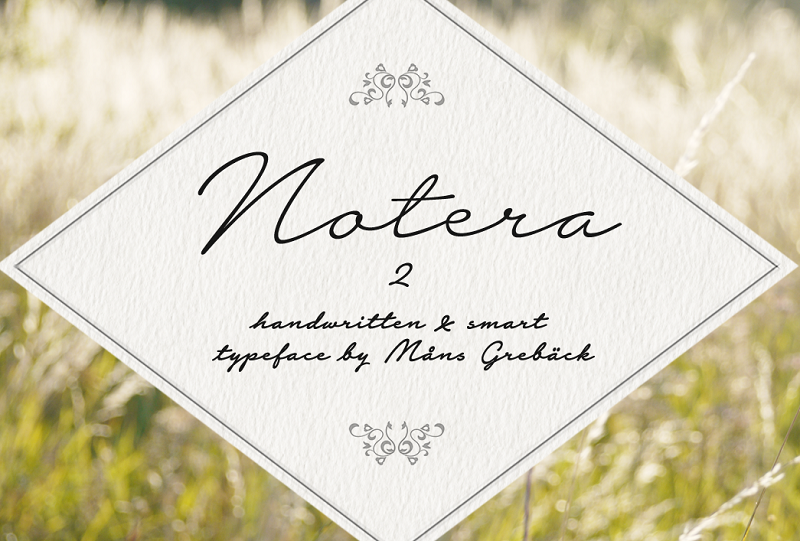
Notera 2
Notera 2 Font Family
Notera 2 is a handwritten typeface drawn and created by Måns Grebäck in 2018. It is a recreation of the popular Notera font, extended to five weights: Thin, Light, Medium, Bold and Black.